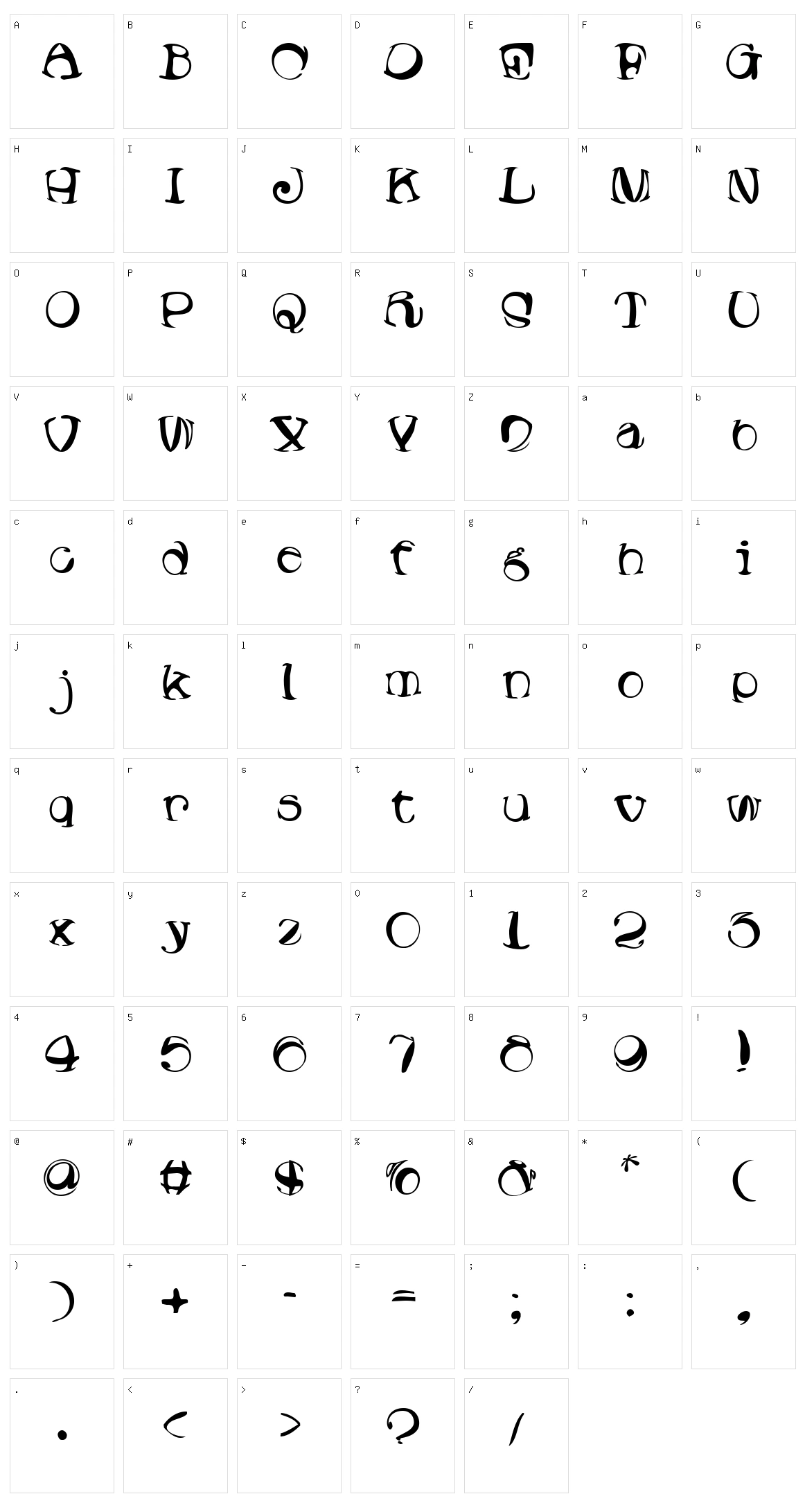
The free font Lumpin is carefully designed by Foam Train Fonts, showcasing a thoughtful balance of creativity and usability and falls under the Distorted font style. When you download the ZIP file, it contains only 28.23 KB of font files, making it lightweight and quick to download. Please review the license details below to understand permitted usage and distribution rights. If license information is not available, we recommend using this font for personal projects only or contacting the author directly for commercial usage permissions.